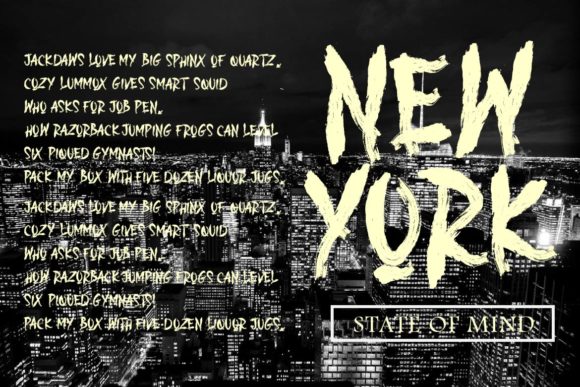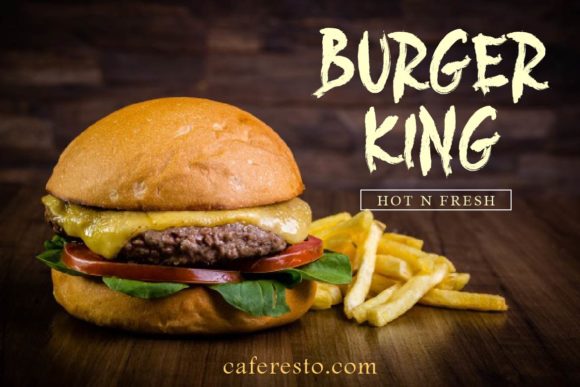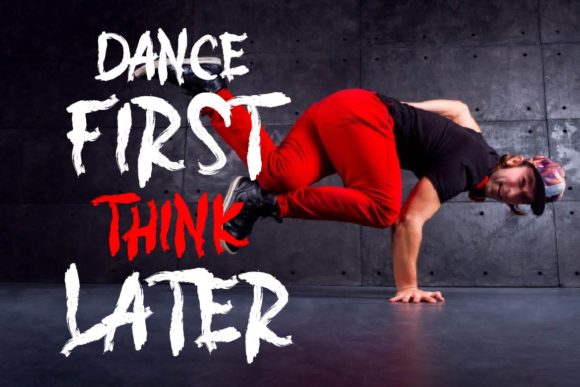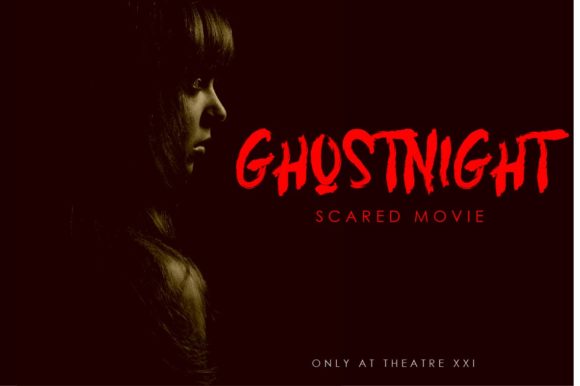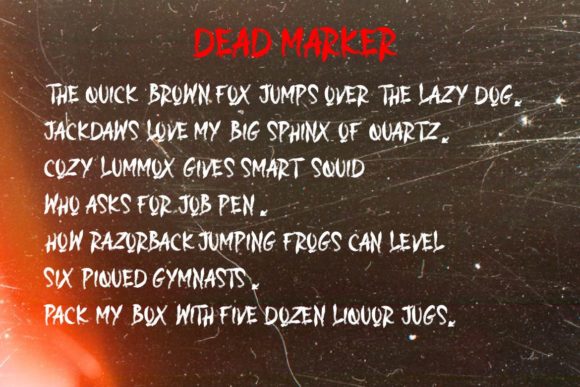
Discover the Quirkiness of Dead Marker Font: A Unique Display Font for Creative Projects
In the vast world of typography, finding a font that stands out from the crowd can be a daunting task. However, if you’re looking for a display font that exudes quirkiness and versatility, look no further than Dead Marker Font. This unique font has been making waves in the design community, and for good reason. A little bit quirky, Dead Marker Font looks incredibly adept on a wide variety of contexts, making it an excellent addition to any designer’s toolkit.
What is Dead Marker Font?
Dead Marker Font is a display font that boasts a distinctive, hand-drawn aesthetic. Its quirky charm is instantly noticeable, making it perfect for projects that require a touch of personality. The font’s design is characterized by its irregular lines, uneven strokes, and a dash of playfulness, which sets it apart from more traditional fonts.
Key Features of Dead Marker Font
- Unique and Quirky Design: Dead Marker Font’s distinctive style is sure to grab attention and add a touch of whimsy to any project.
- Versatility: This font can be used in a wide range of contexts, from digital designs to print materials, and from headings to titles.
- Hand-Drawn Aesthetic: The font’s hand-drawn look gives it a personal, human touch that’s perfect for designs that require a bit of character.
- Easily Readable: Despite its quirky design, Dead Marker Font remains easily readable, making it a great choice for display text and headings.
Use Cases for Dead Marker Font
So, what can you use Dead Marker Font for? The possibilities are endless! Here are a few ideas to get you started:
- Branding and Logos: Add a touch of quirkiness to your brand’s identity with Dead Marker Font.
- Posters and Flyers: Create eye-catching posters and flyers that demand attention.
- Digital Designs: Use Dead Marker Font in your website headers, social media graphics, and other digital designs.
- Crafting and DIY Projects: Add a personal touch to your crafting and DIY projects, such as handmade cards, gift tags, and more.
Tips for Using Dead Marker Font
To get the most out of Dead Marker Font, here are a few tips to keep in mind:
- Use it Sparingly: Due to its bold and quirky design, Dead Marker Font works best when used sparingly. Use it for headings and titles, and pair it with a more traditional font for body text.
- Experiment with Colors: Dead Marker Font looks great in a variety of colors, so don’t be afraid to experiment and find the perfect hue for your project.
- Pair it with Other Fonts: Dead Marker Font pairs well with a range of other fonts, so try combining it with different styles to create a unique look.
In conclusion, Dead Marker Font is a unique and interesting display font that’s sure to add a touch of quirkiness to any project. Its versatility, hand-drawn aesthetic, and easily readable design make it perfect for a wide range of contexts. Whether you’re a designer, crafter, or DIY enthusiast, Dead Marker Font is definitely worth checking out. So why not give it a try and see how it can elevate your designs?
With its bold and playful design, Dead Marker Font is sure to make a statement. So, go ahead and get creative with Dead Marker Font – your designs will thank you!